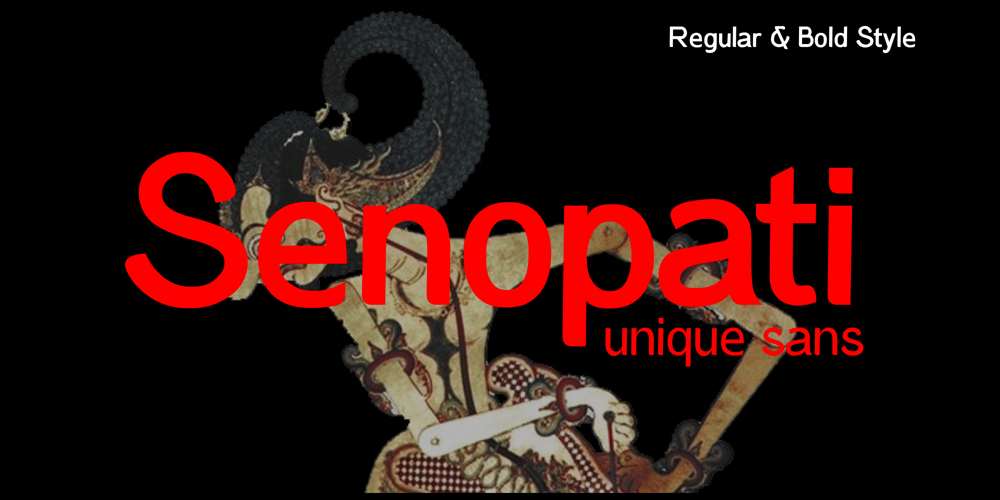
Senopati Font Family was designed by Zamjump and published by Zamjump. Senopati contains 2 styles and family package options. Senopati is a unique and stunning typeface that offers clean lines, sharp edges, and dual weights. An incredibly versatile font, Senopati is perfect for logos, websites, invitations, quotes, advertisements, prints, magazines, and more!What really makes Senopati a special font is the lowercase (available via lowercase). Each small cap is the same thickness as the upper case, making it super easy to create beautiful logos and impressive text.What’s Included:LigatureWorks on PC & MacSimple installationAccessible in Adobe Illustrator, Adobe Photoshop, Adobe InDesign, even works in Microsoft Word.The font includes multilingual support.PUA Coded Characters – Fully accessible without additional design software.Thank you for your purchase!Hope you enjoy with our fonts!